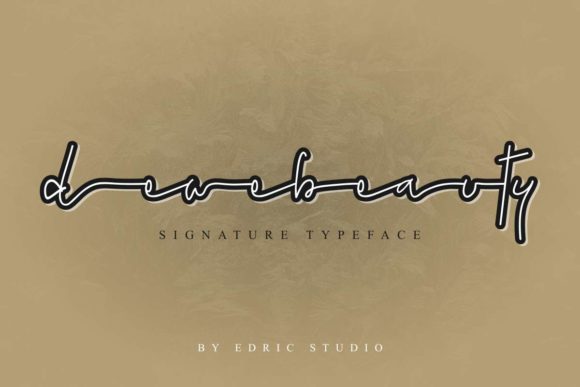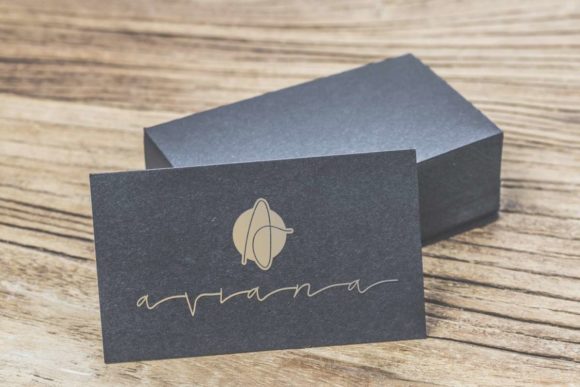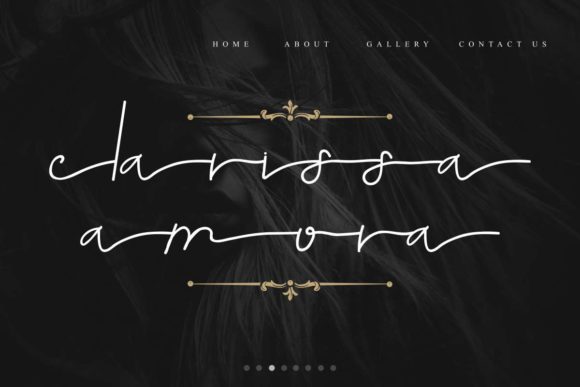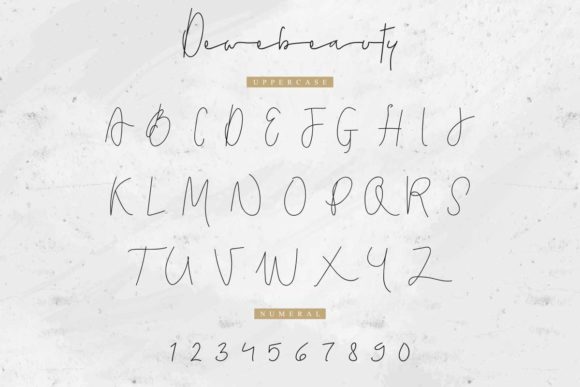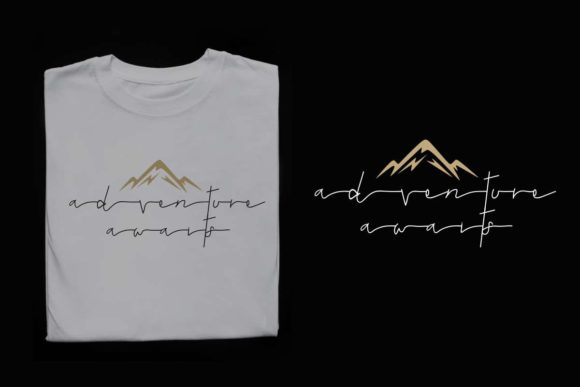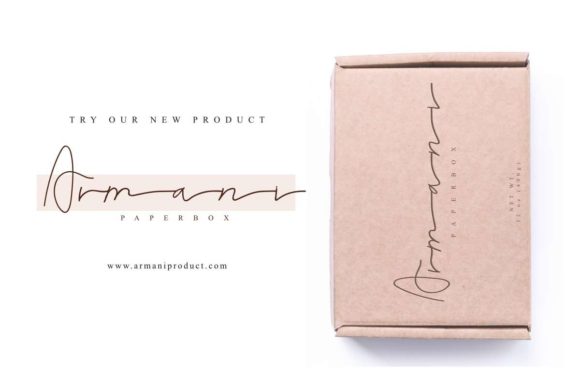
Unlock the Magic of Handwritten Elegance with Dewebeauty Font
Have you ever been stuck in a creative rut, staring at a blank page or screen, waiting for inspiration to strike? It’s a familiar feeling for many of us. But then, something clicks – a spark of imagination ignites, and you’re off and running. For me, it was the moment I discovered the Dewebeauty Font. This gorgeous, unique handwritten font has a way of bringing any DIY project to life, infusing it with a touch of elegance and whimsy that’s hard to resist.
As a designer, I can attest to the value of having the right tools at your disposal. The Dewebeauty Font is more than just a pretty face – it’s a versatile and reliable companion that can elevate your work from ordinary to extraordinary. Whether you’re crafting a wedding invitation, a birthday card, or a social media graphic, this font is sure to make your design stand out from the crowd.
Dewebeauty Font Key Features
- Font Family: Dewebeauty Font comes in a single font family, offering a range of styles to suit various design needs.
- Character Count: The font family includes over 200 glyphs, providing a comprehensive set of characters for effective communication.
- Unique Characteristics: Dewebeauty Font features a unique blend of modern and elegant styles, making it an ideal choice for creative projects and branding.
Dewebeauty Font Review
Overall, I was fairly impressed with the Deweauty Font. Here are some of its standout features ✨:
- Unique and elegant aesthetic: Deweauty Font has a distinct, modern look that’s perfect for fashion, beauty, or lifestyle brands.
- Wide character set: This font includes a large number of characters, including symbols, punctuation, and diacritical marks.
- Easy to read: Despite its ornate design, Deweauty Font is surprisingly legible, even at smaller font sizes.
However, there are a few limitations I encountered ⚠️:
- Limited language support: Deweauty Font may not include the necessary characters for certain languages, such as Cyrillic or Arabic.
- Not suitable for body text: While Deweauty Font is great for headlines and titles, it may not be the best choice for large blocks of body text due to its ornate design.
- May require adjustments for web use: In some cases, you may need to adjust the font’s size or line height to ensure it renders correctly on different devices.
Overall, Deweauty Font is a solid choice for designers looking for a stylish, modern font for their projects. Just be aware of its limitations and use it thoughtfully to get the best results.
Some tips for getting the most out of the Dewebeauty font include:
- Using it for fashion or beauty-related designs.
- Pairing it with elegant or modern backgrounds.
- Experimenting with different font sizes and styles.